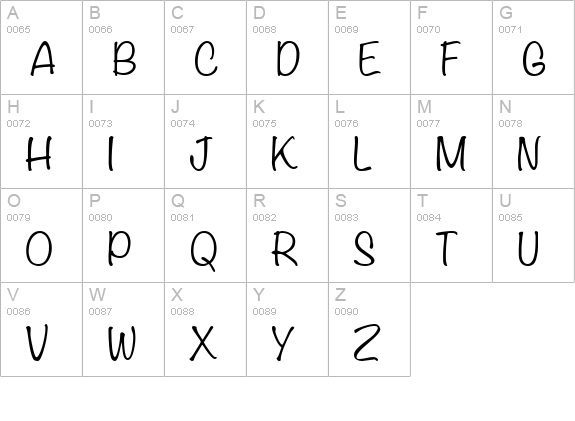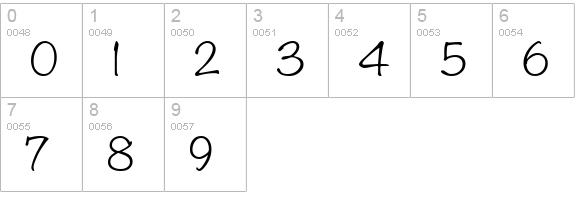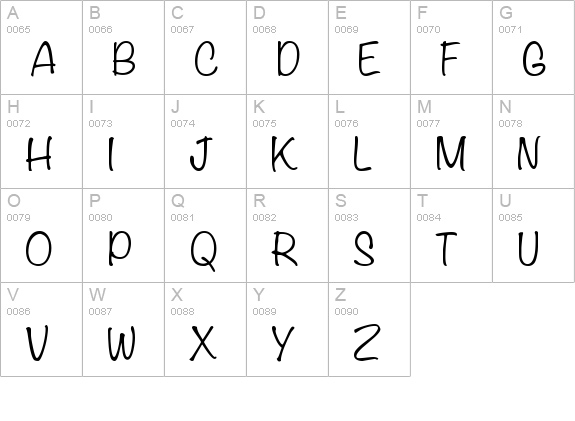
Noteworthy Light is a refined, elegant variant in the Noteworthy typeface family \xE2\x80\x94 well suited to elegant body text, refined sub-headings, and luxury branding.
Noteworthy Light is a beautifully designed font that exudes elegance and sophistication. Its sleek and modern appearance makes it perfect for a wide range of design projects, from branding to editorial layouts. The clean lines and balanced proportions of Noteworthy Light give it a timeless quality that is both versatile and eye-catching.
This font is not only visually appealing but also incredibly easy to read, making it suitable for both digital and print applications. Whether you're creating a website, designing a logo, or working on a brochure, Noteworthy Light will elevate your project with its refined aesthetic.